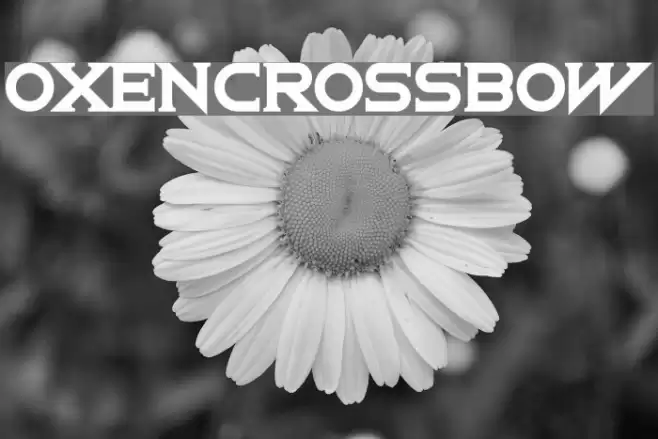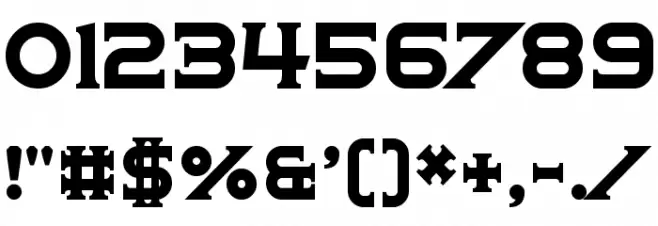
OxenCrossbow Font
OxenCrossbow Description
This font features a bold and striking design with sharp, angular edges and a strong geometric influence. The uppercase letters are particularly distinctive, with a futuristic and dynamic appearance that suggests movement and energy. The numerals and special characters maintain this bold style, ensuring consistency across all glyphs. The font's unique design makes it stand out, with a modern and slightly aggressive aesthetic that is both eye-catching and memorable.
A bold, angular font with a futuristic and dynamic style from Uncategorized fonts.
- Proposed Projects: Ideal for branding, sports team logos, video game titles, and any project requiring a bold, modern look.